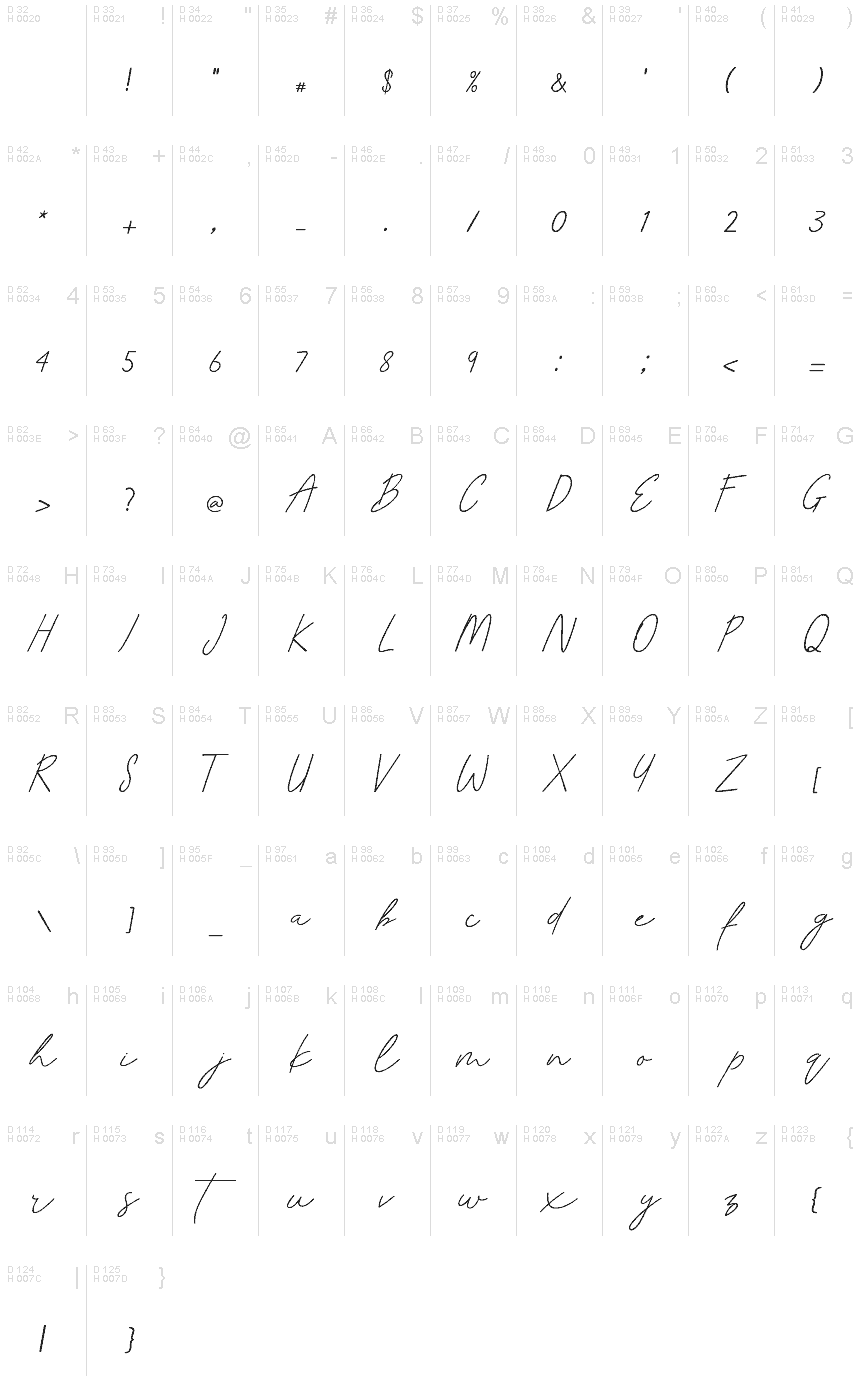
AndinoRasmitha
Andino Rasmitha font by UI Creative is a light handwritten font with an elegant flowing script that bears a signature-style appearance. Despite its lack of connectivity, the typeface flows smoothly giving it sophisticated modern aesthetics that suit many projects.